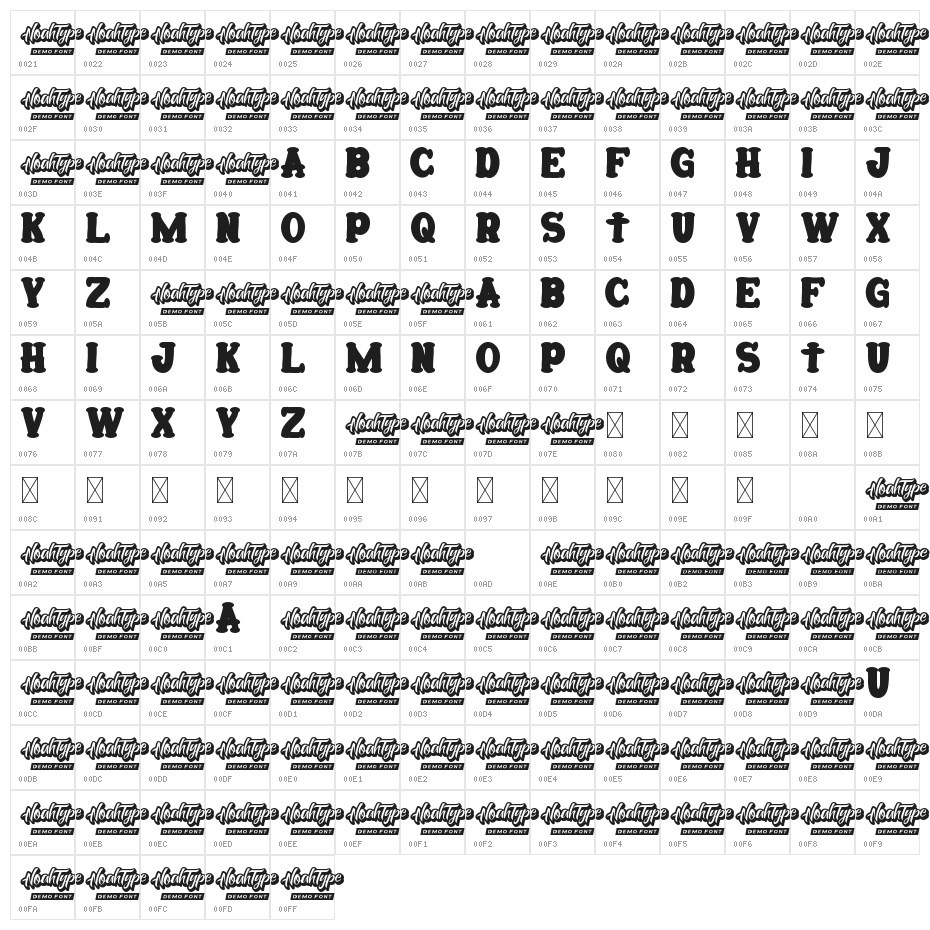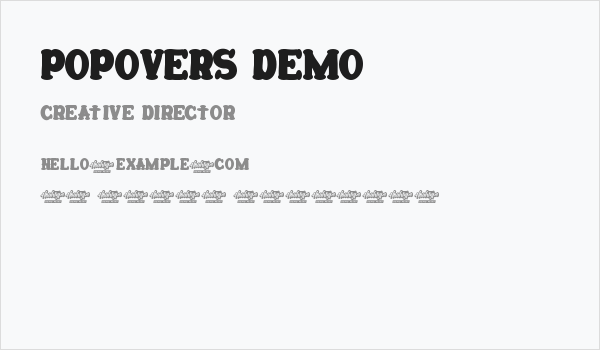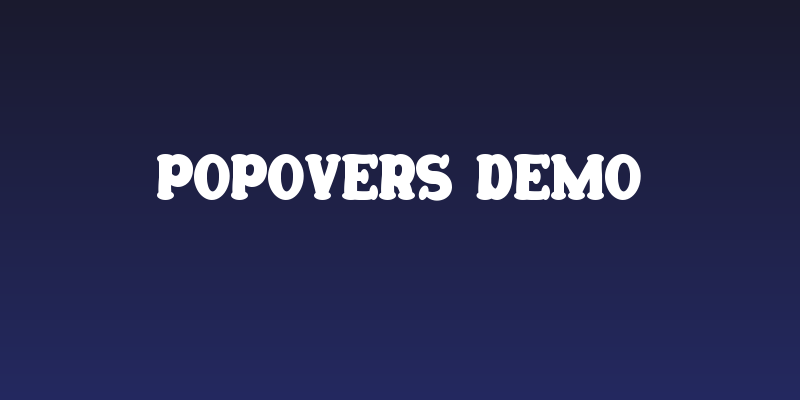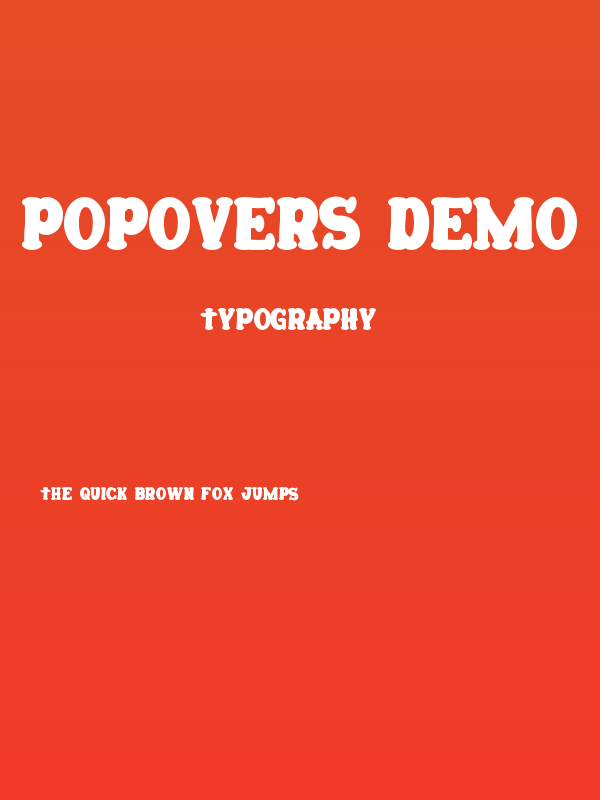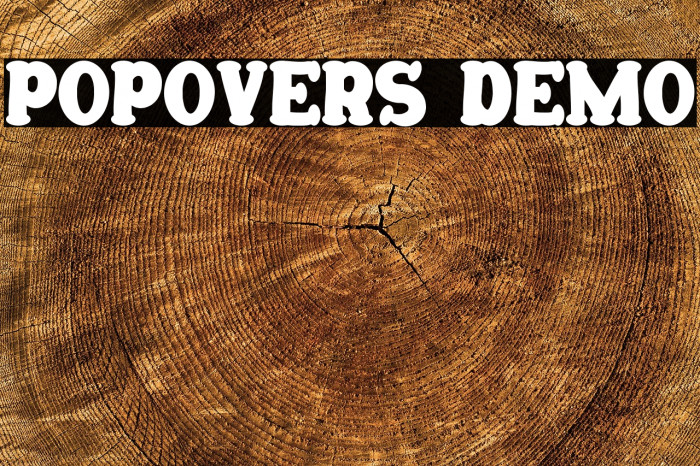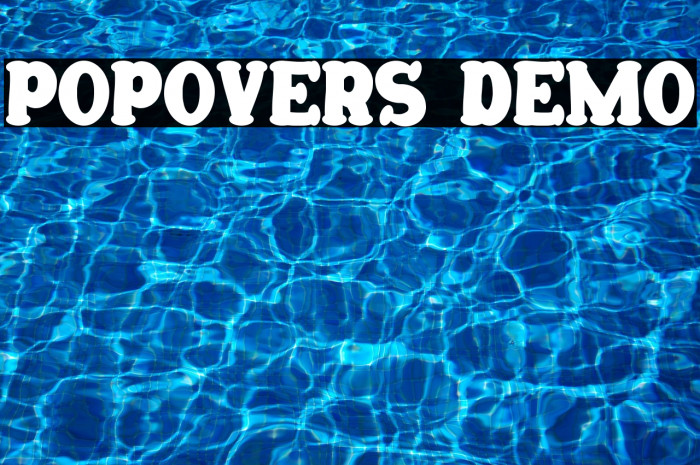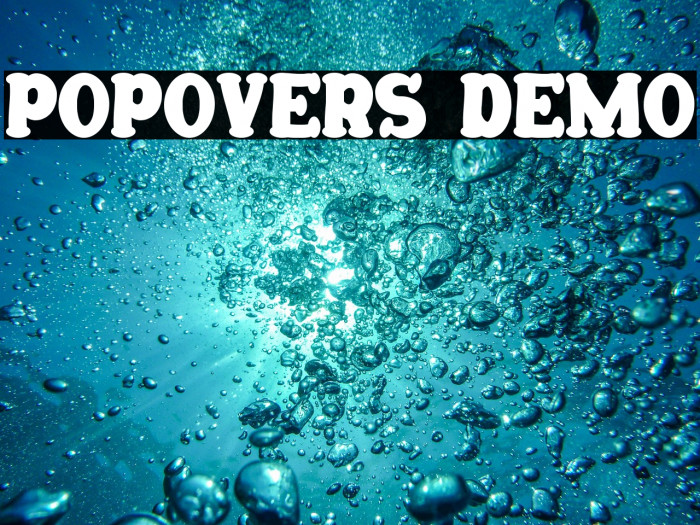
Popovers Demo Font
Popovers Demo Description
This font features a bold and playful design with thick, rounded strokes that give it a bubbly and friendly appearance. The characters are uniformly bold, with a consistent weight throughout, creating a cohesive and impactful look. The rounded edges and exaggerated curves add a whimsical touch, making it ideal for creative and fun projects. The font maintains a consistent height across all characters, ensuring readability while adding a touch of uniqueness with its slightly condensed form. The overall style is decorative, making it suitable for eye-catching designs.
| Proposed Projects | Ideal for children's books, playful branding, posters, and creative advertising. |